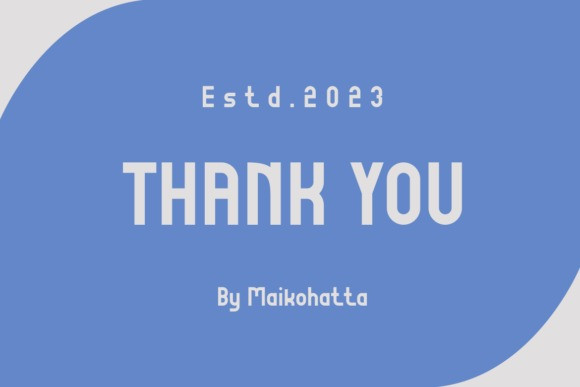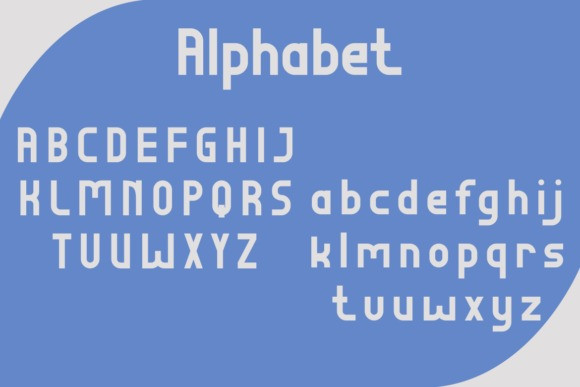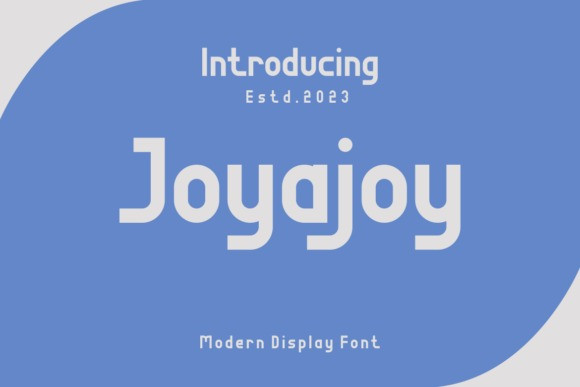
Joyajoy Font
Joyajoy Font is a unique and interesting display font. Distinctive and modern, this font looks incredibly adept in a wide variety of contexts! Please download and enjoy.